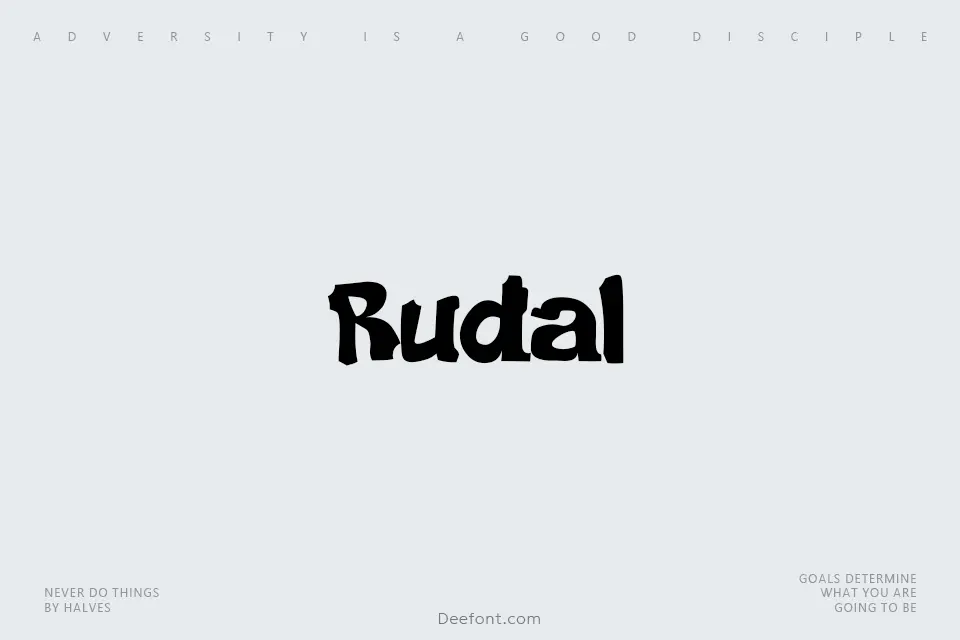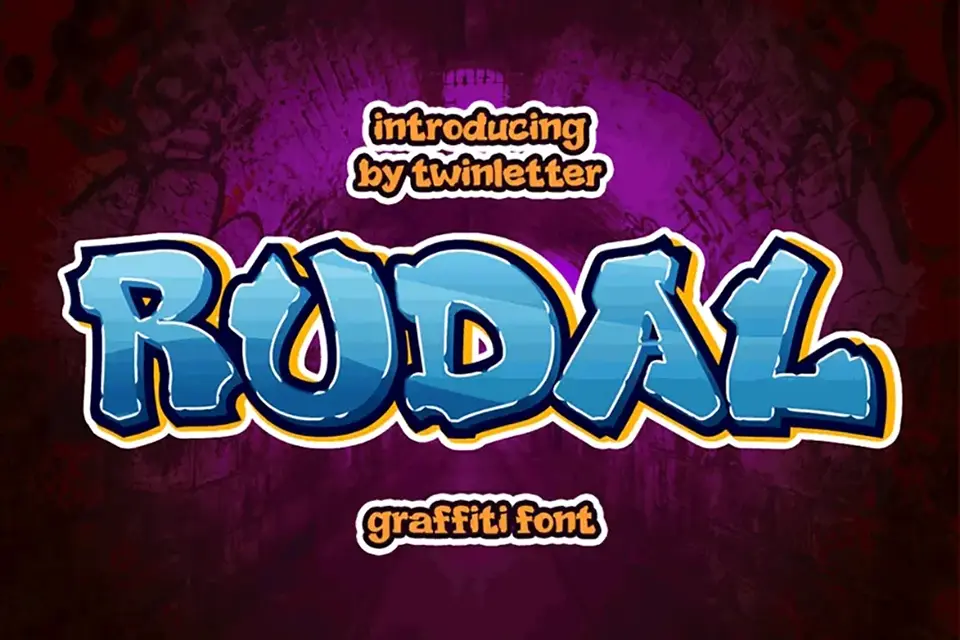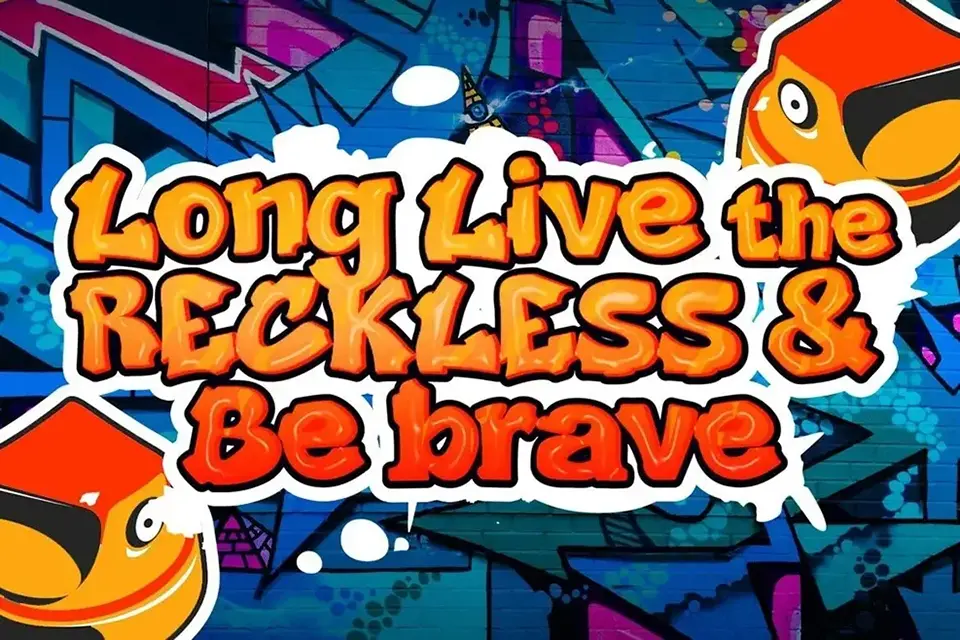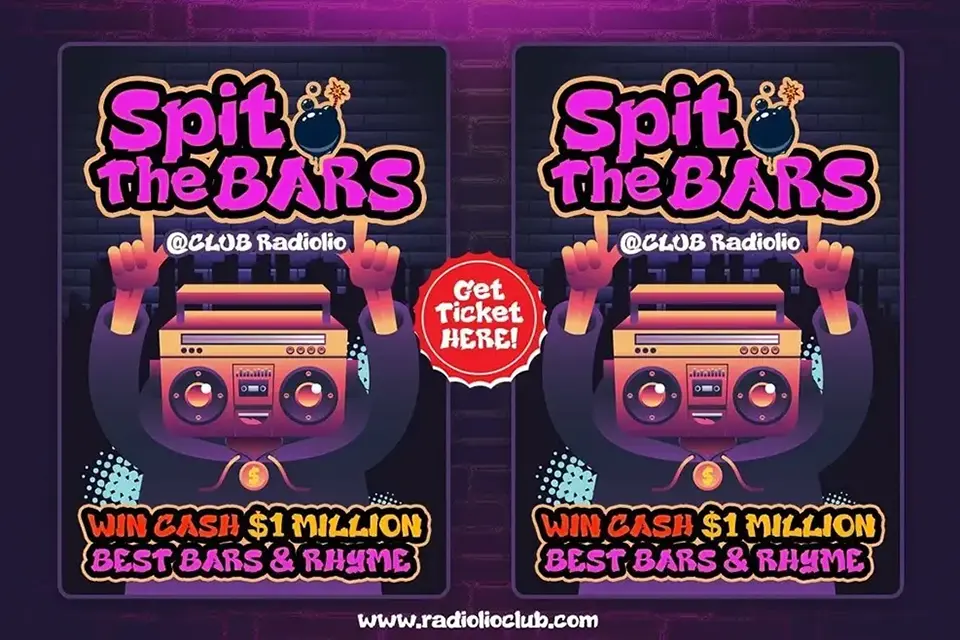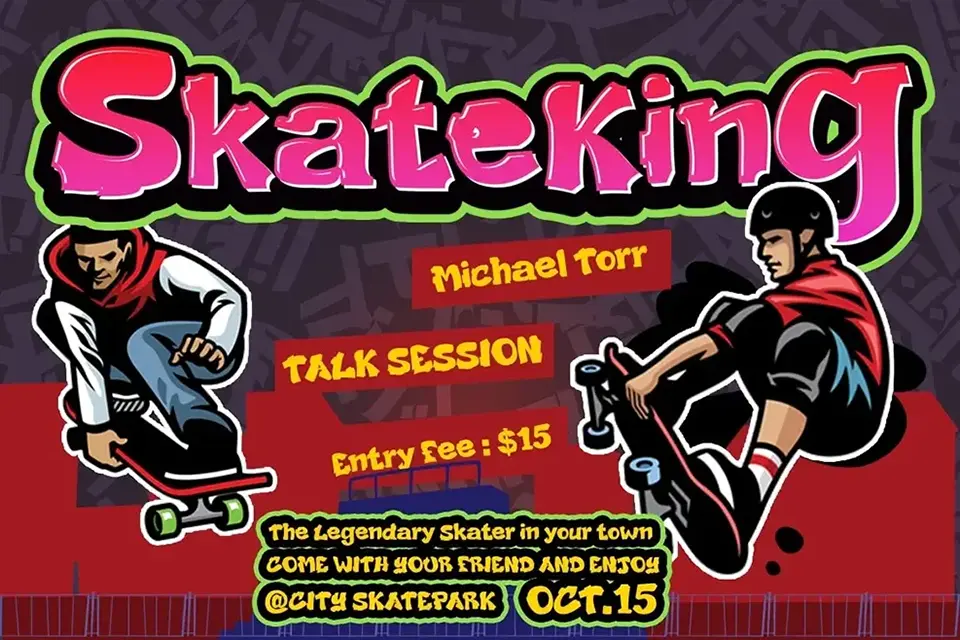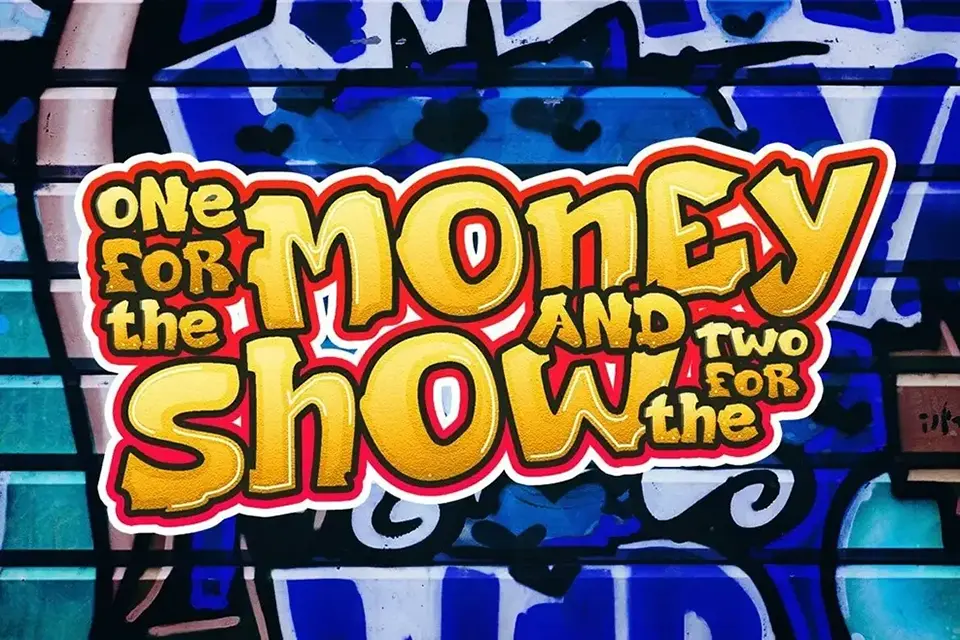
Rudal Font
Rudal is a modern graffiti display font that brings bold, futuristic style to your creative projects. With sharp edges and striking lines inspired by 1980s street art aesthetics, this typeface excels at creating eye-catching headlines, posters, branding materials, and product logos. Featuring 197 carefully crafted glyphs, Rudal combines versatility with distinctive visual impact, making it an ideal choice for designers seeking unique typography that stands out.